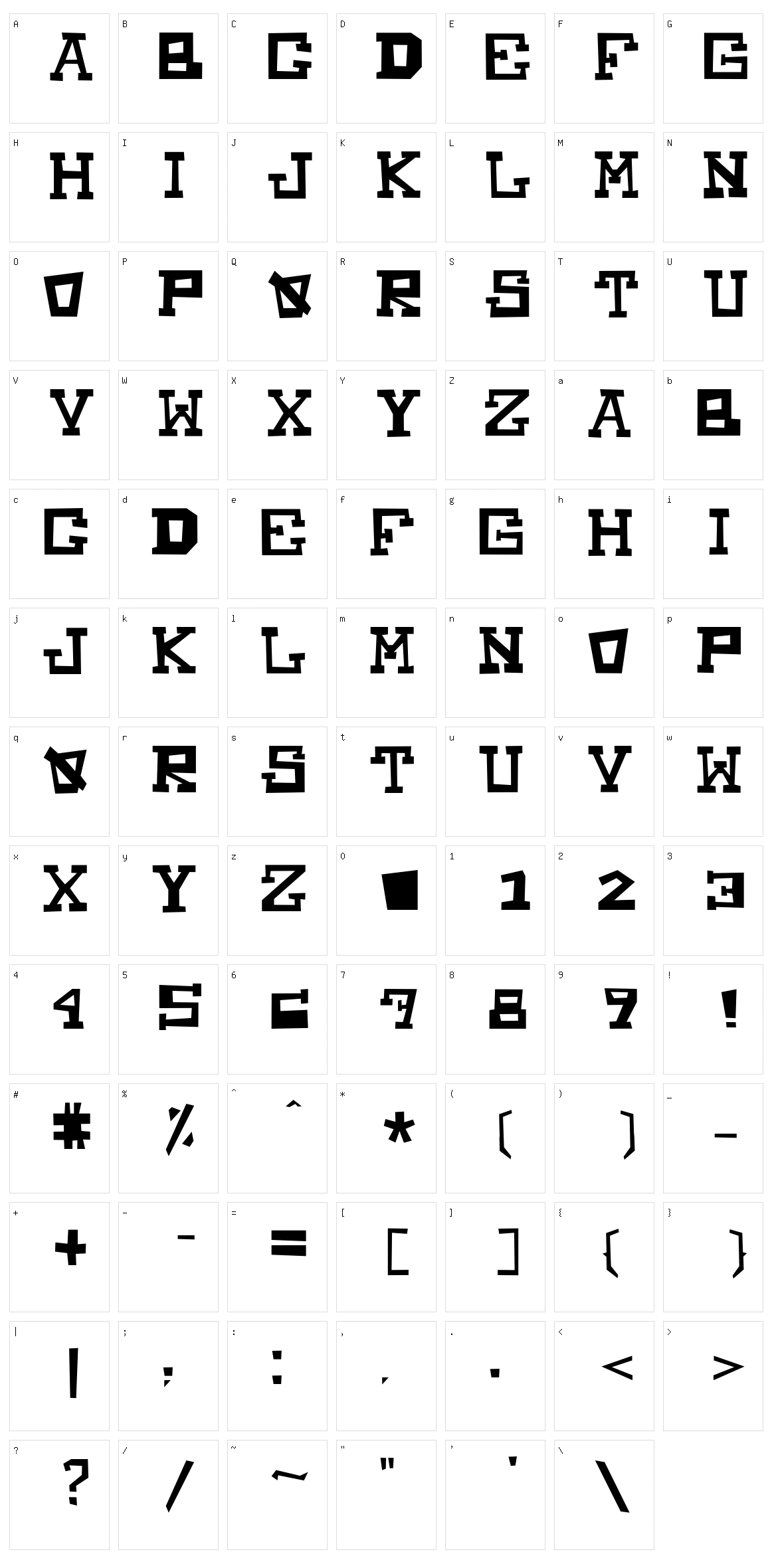
The free font Mucho Power is carefully designed by Mr.Morts, showcasing a thoughtful balance of creativity and usability and falls under the Mexican font style. When you download the ZIP file, it contains only 6.32 KB of font files, making it lightweight and quick to download. Please review the license details below to understand permitted usage and distribution rights. If license information is not available, we recommend using this font for personal projects only or contacting the author directly for commercial usage permissions.